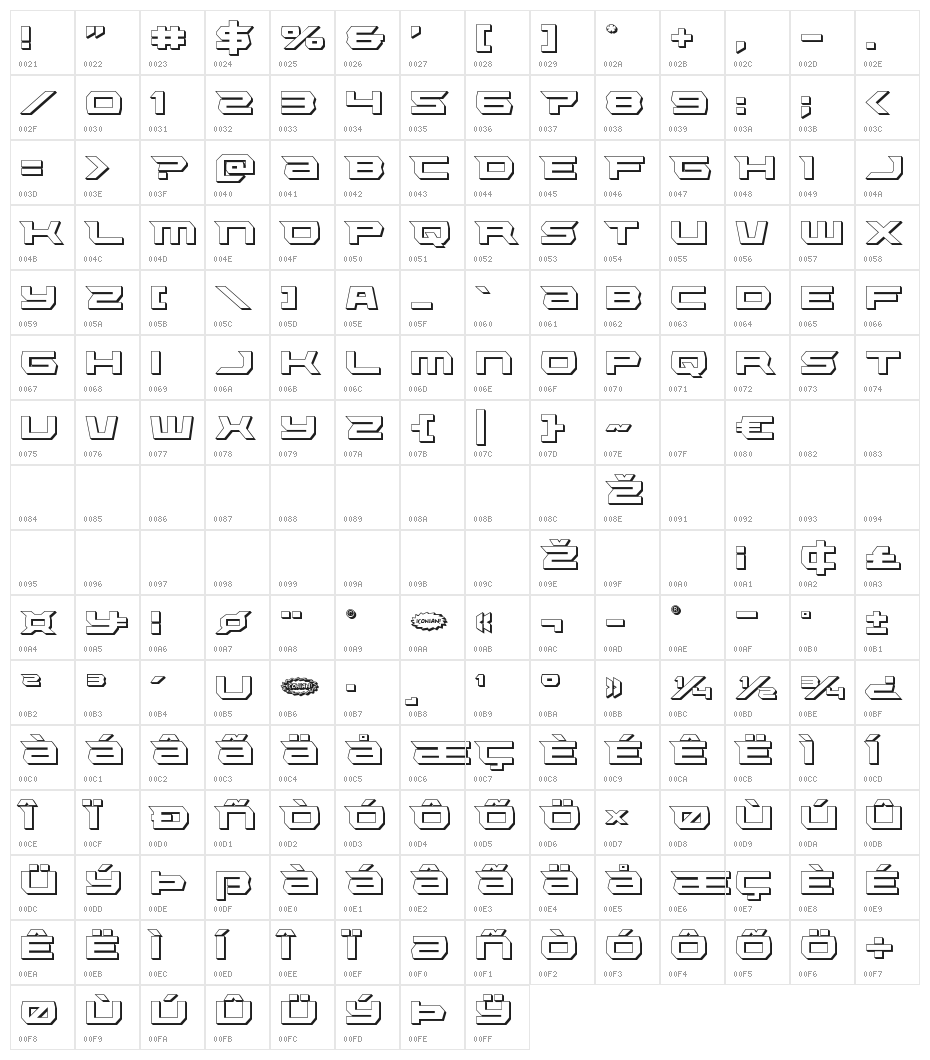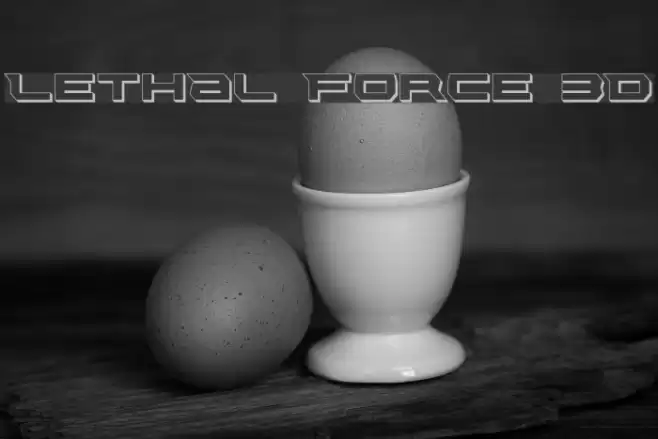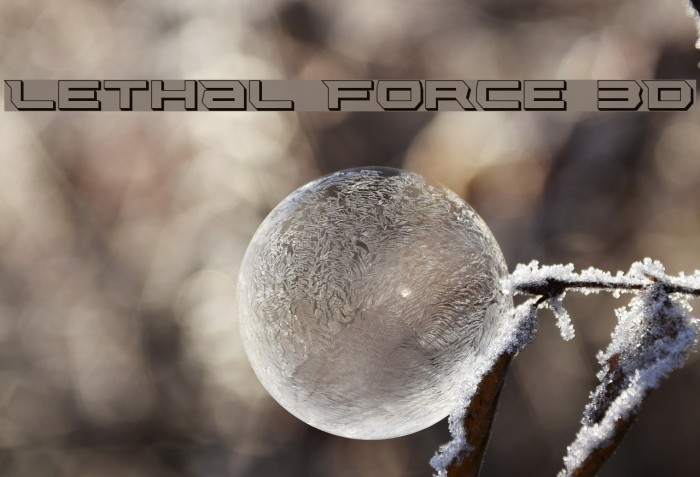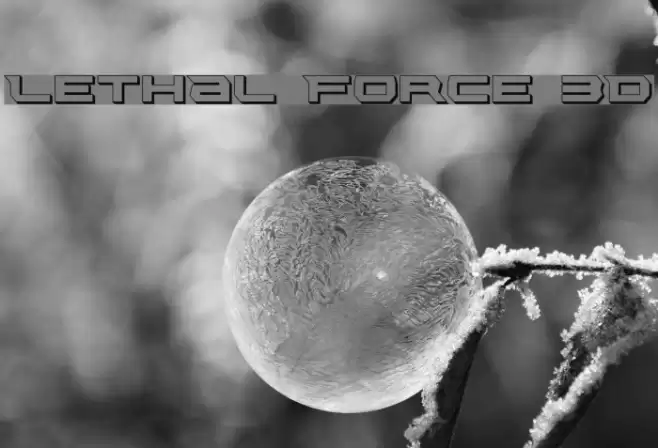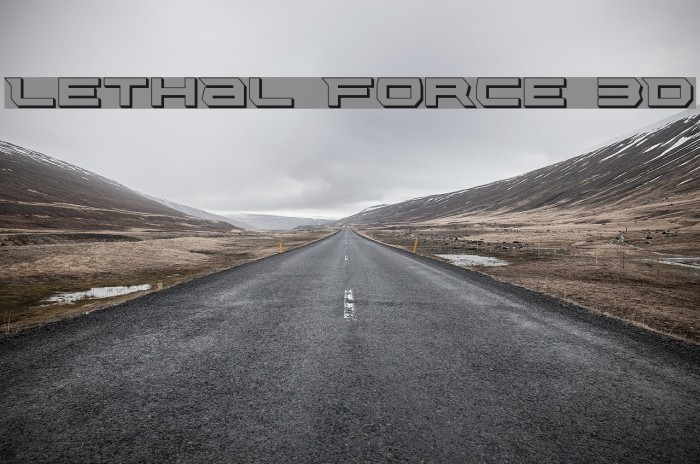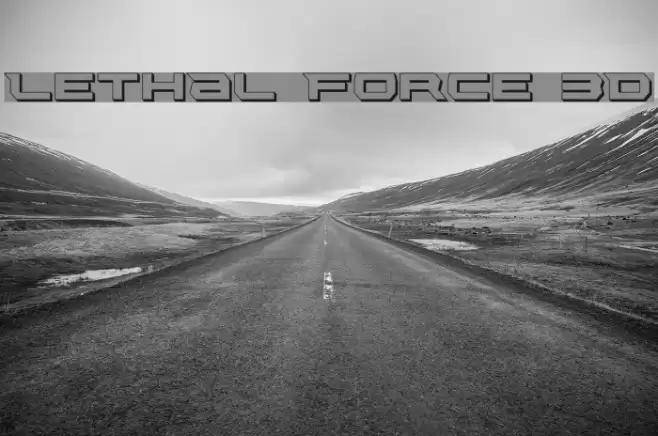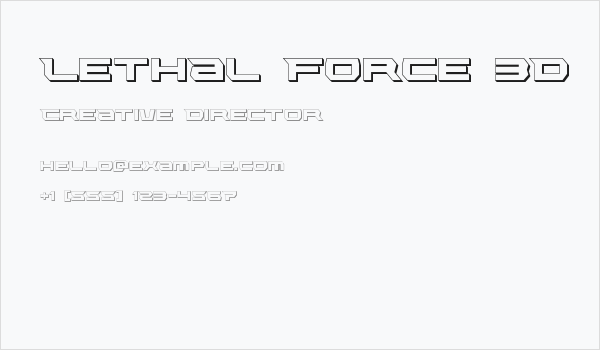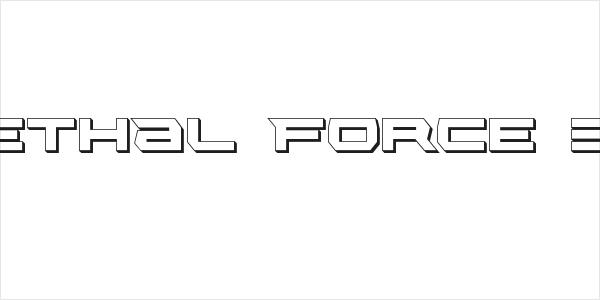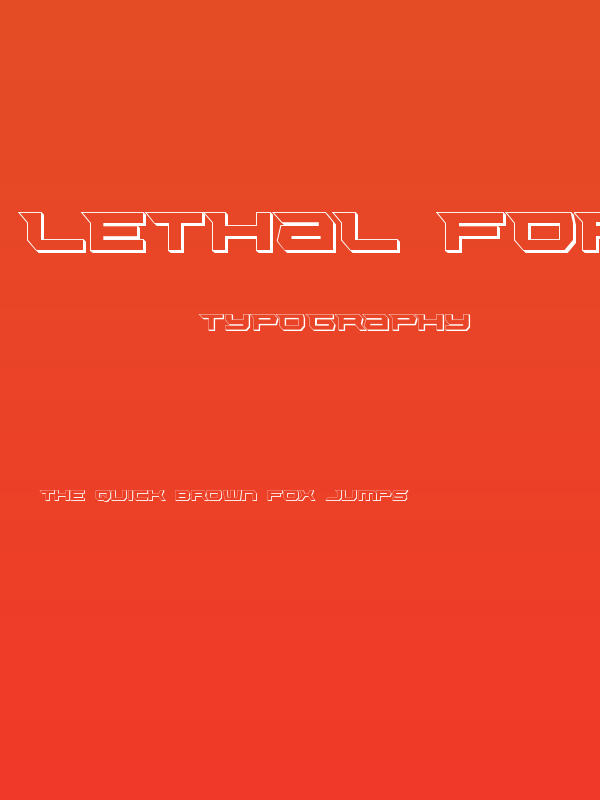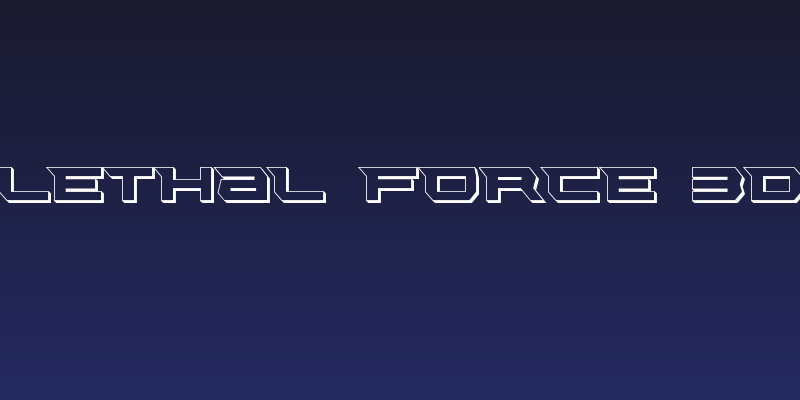
Lethal Force 3D Font
Lethal Force 3D Description
This font features a bold, three-dimensional design with a futuristic and industrial aesthetic. The characters are outlined with a thick black border, giving them a striking and impactful appearance. The geometric shapes and sharp angles contribute to a sense of strength and modernity. Each letter and number is crafted with precision, creating a cohesive and visually engaging typeface. The special characters maintain the same bold and structured style, ensuring consistency across all elements.
| Proposed Projects | Ideal for video game titles, sci-fi movie posters, technology branding, and any project requiring a strong, modern aesthetic. |